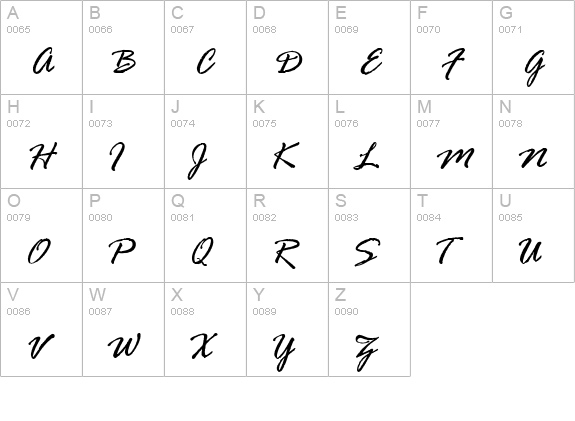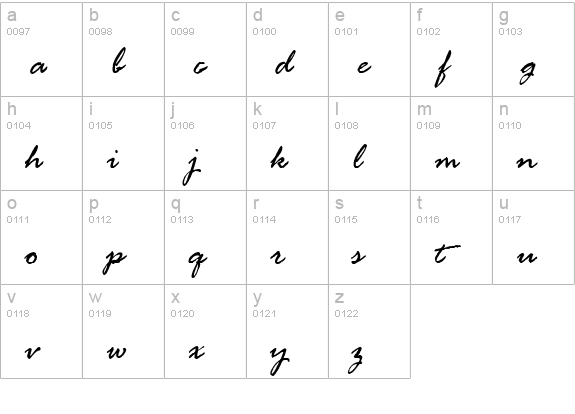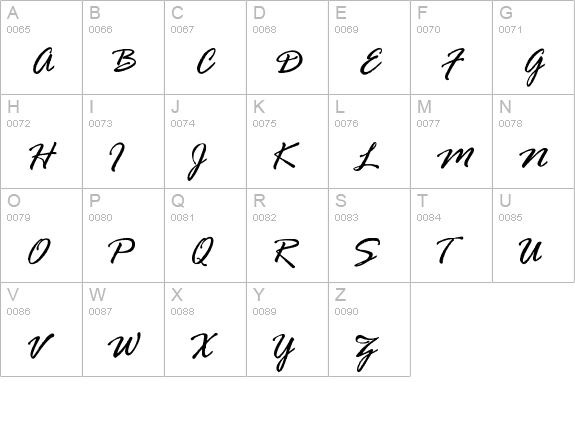
Soubrette font is a charming and playful typeface that exudes a sense of whimsy and elegance. Its delicate strokes and graceful curves make it perfect for adding a touch of sophistication to any design project. Whether you're creating invitations, posters, or branding materials, Soubrette font will bring a sense of style and grace to your work. What's even better is that Soubrette font is available for free! You can easily download this beautiful typeface at FontsMarket.com and start using it in your projects right away. Don't miss out on this fantastic opportunity to elevate your designs with the timeless beauty of Soubrette font.